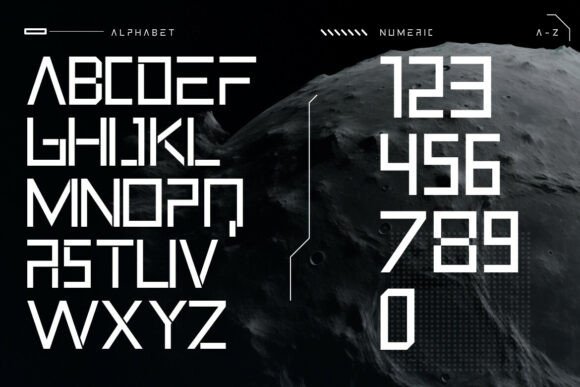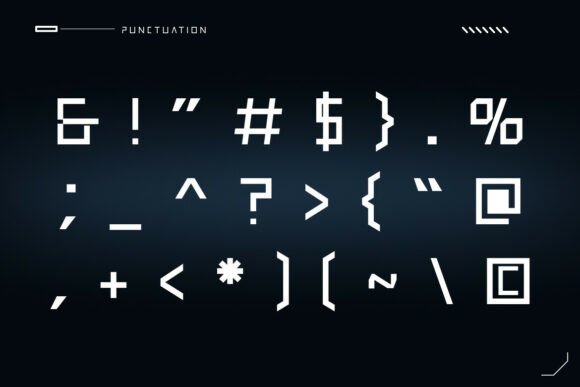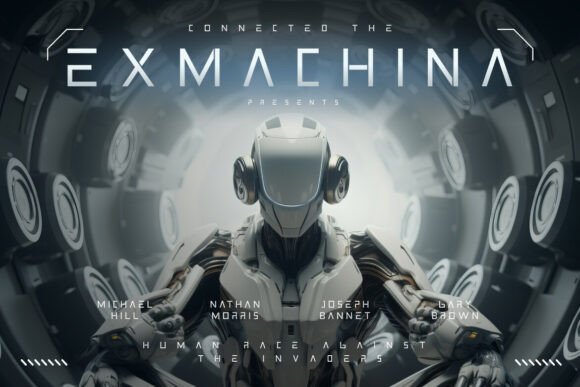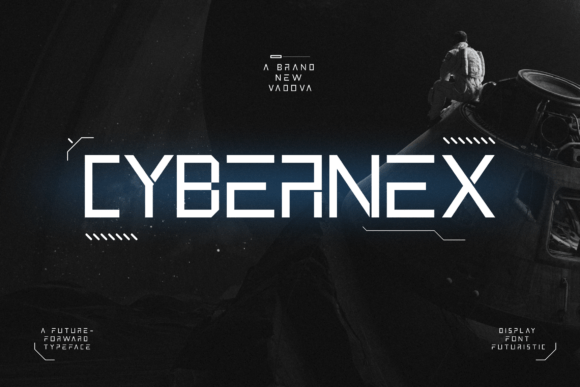
Introduction to Cybernex Font
Cybernex is a futuristic display font built with sharp geometric forms and a clean all-caps structure inspired by modern technology, space exploration, and sci-fi aesthetics.
Its bold, precise letterforms convey a strong digital and forward-thinking character, making the typeface stand out in high-impact visual compositions The consistent proportions and angular cuts give CYBERNEX a modern, professional, and high-tech appearance.